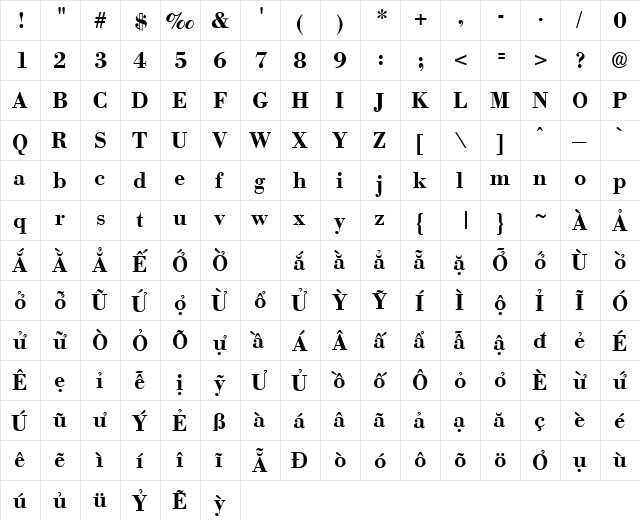
VPS Con Son Bold
Design Context for VPS Con Son Typeface
VPS Con Son takes a measured approach to typography — its balanced proportions and neutral character make it a reliable workhorse for both digital and print work. The heavy weight commands attention and anchors typographic hierarchies.